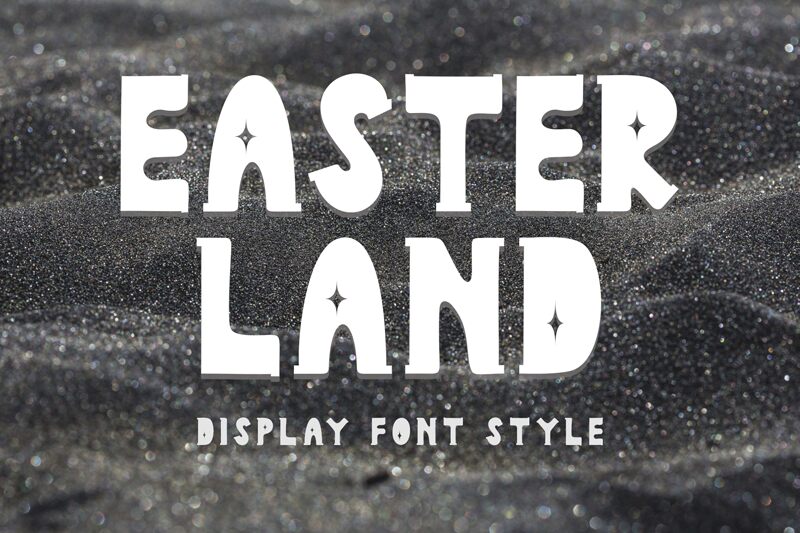
Easter Land font by Yoga Letter is a free font combining imaginative vibes with decorative elements. The overall design of each letter speaks boldly enough to stand on its own. Yet, this vintage and unique font is extremely cohesive as a whole and works impeccably as well in texts. Back to past, the extended characters from Easter Land evoke a sense of vintage and fun.
Check out this font in a text of a restaurant pack as in a menu, wrapping paper designs or fancy label stickers. You can make it the every hero of a project or combine it with other script fonts and sans serifs. Easter Land is perfect for signages, branding designs, posters, including digital and printed advertising campaigns.